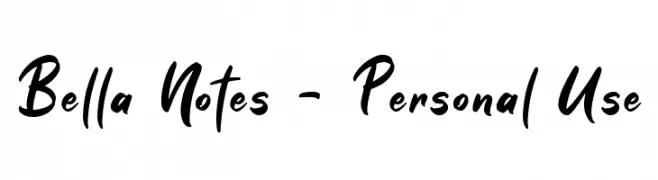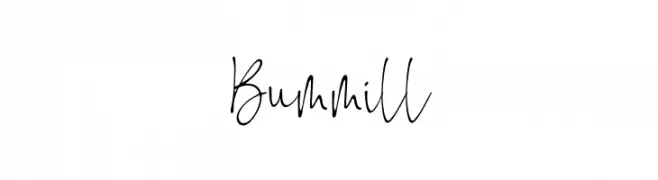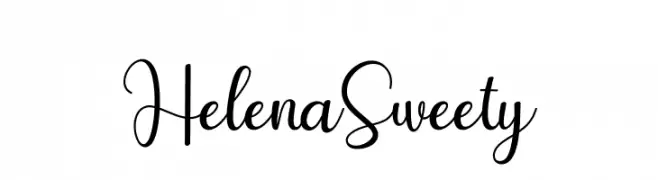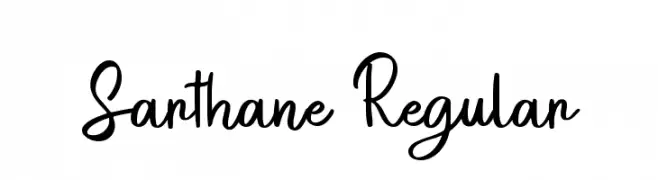
A dynamic and expressive handwritten font with fluid strokes and playful curves.
An elegant cursive font with decorative swirls and flowing lines.
A playful and flowing script font with elegant curves and a handwritten appeal.
A playful and dynamic script font with smooth curves and a cohesive style.
A playful, casual handwritten font with smooth curves and a friendly feel.
A playful, casual handwritten font with loose and flowing strokes.
A bold, playful script font with a festive, dynamic style.
A playful, handwritten script font with a whimsical and casual style.
A charming and elegant script font with a handwritten feel.
A playful, handwritten font with dynamic strokes and a casual style.